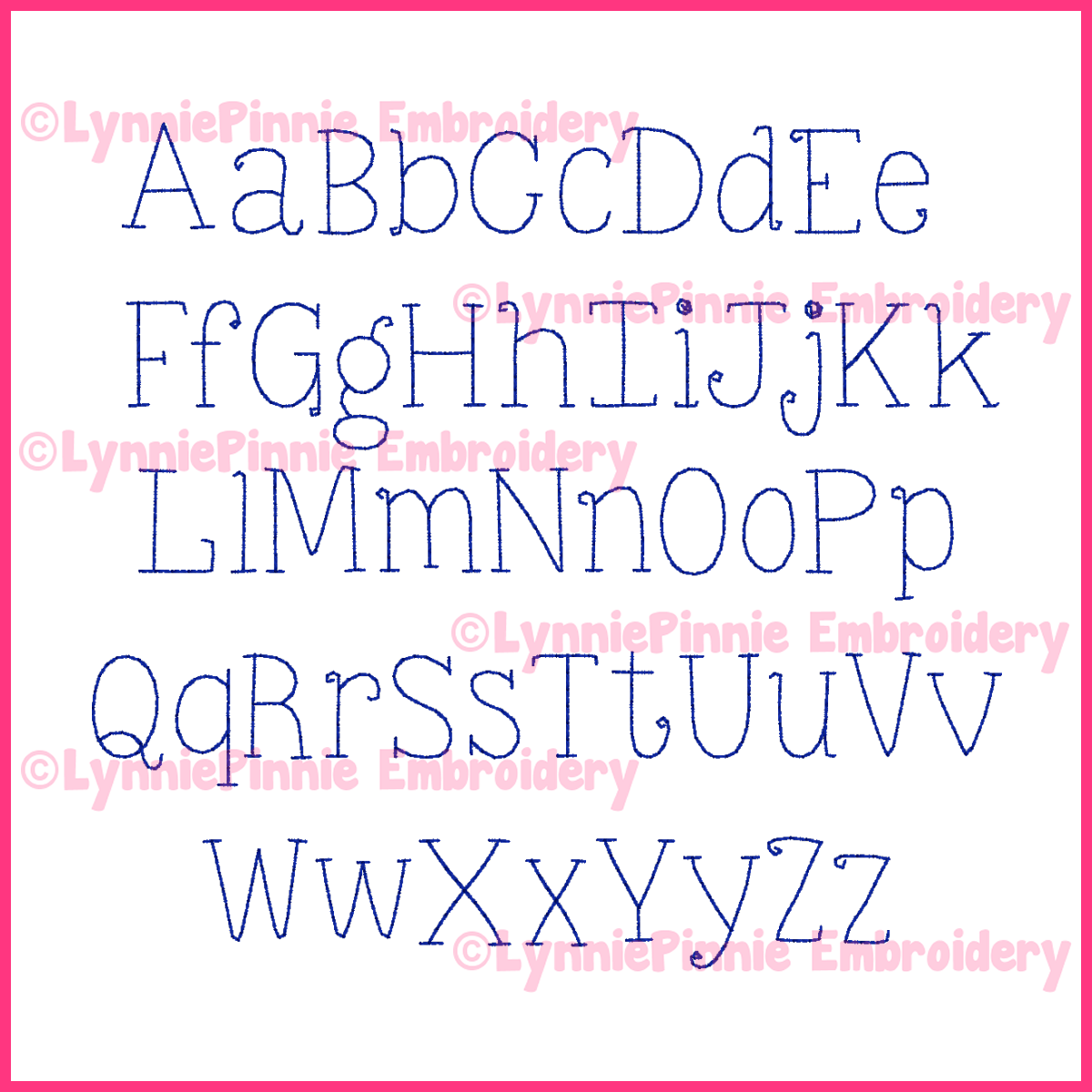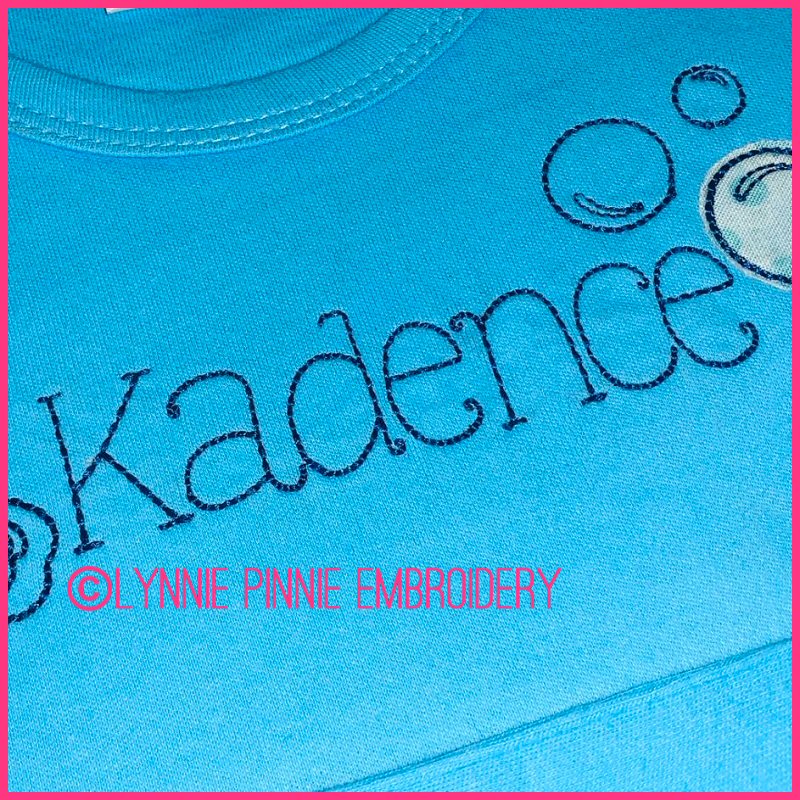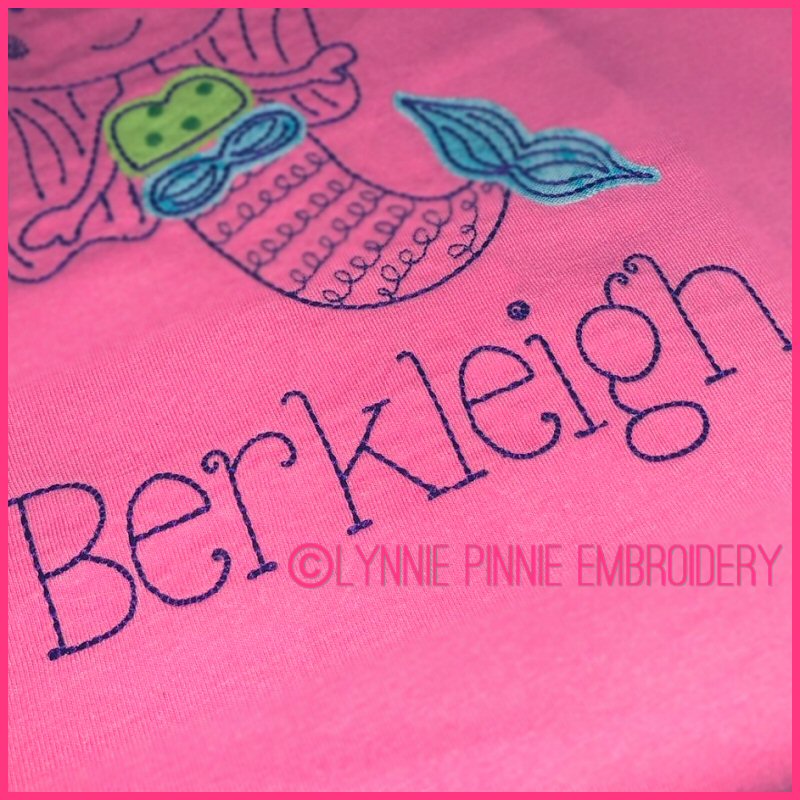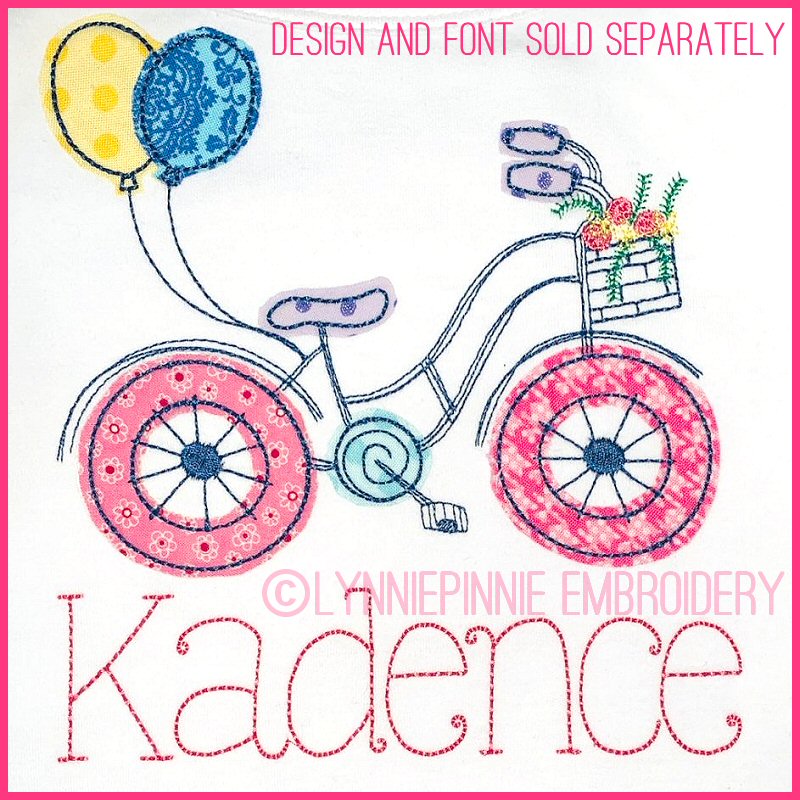
Be Still Bean Stitch Font Uppercase & Lowercase Font DIGITAL Embroidery Machine File -- 5 sizes + Native BX Embroidery Font Scalable
This simple bean stitch font is perfect for kids clothing and beyond!